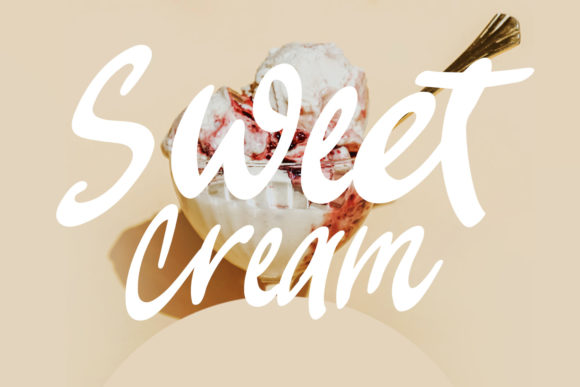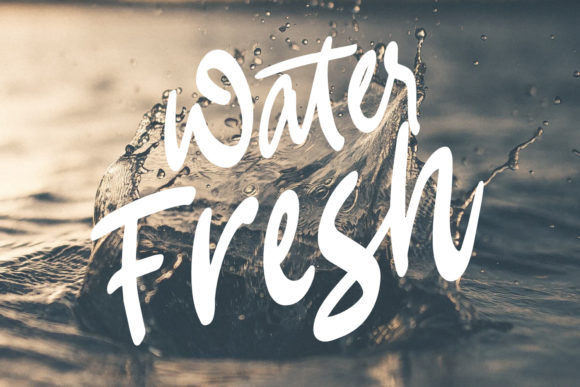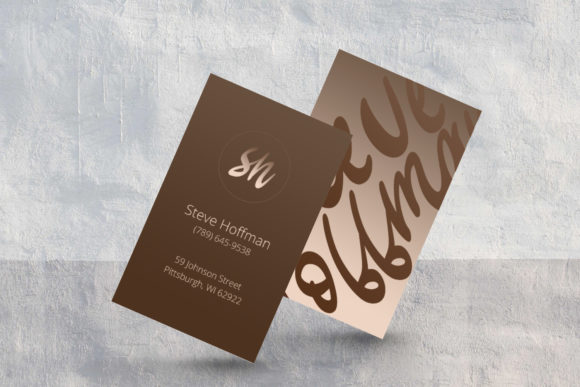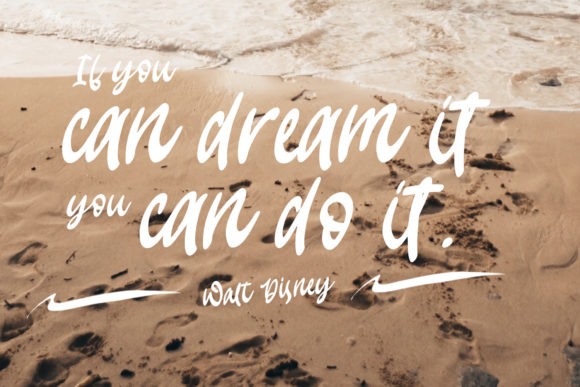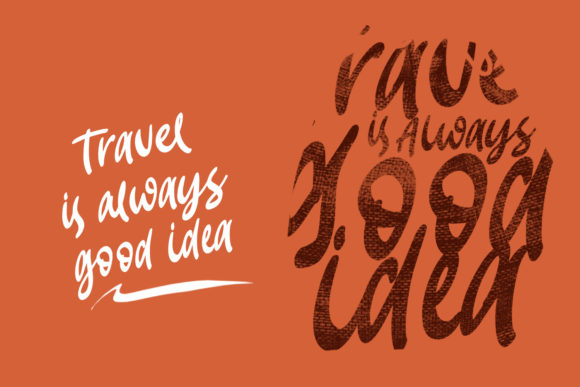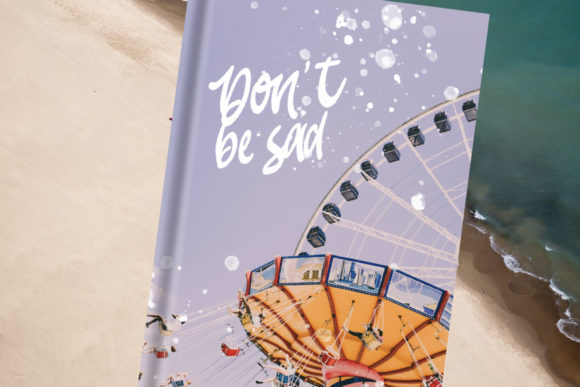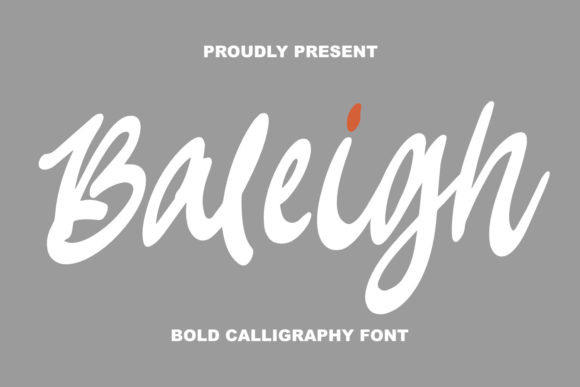
Baleigh Font: The Ultimate Casual Script Font for Designers and Crafters
In the world of typography, a good font can make all the difference in elevating your design or crafting project. If you’re looking for a relaxed, casual, and chunky lettered script font that can add a touch of personality to your creations, look no further than Baleigh Font. In this article, we’ll dive into the features and benefits of Baleigh Font, and explore how it can become an incredibly valuable asset to your font library.
What is Baleigh Font?
Baleigh Font is a modern script font that exudes a sense of casual elegance. Its relaxed and chunky lettering style makes it perfect for a wide range of design and crafting projects, from social media graphics and blog posts to invitations, packaging, and more. Whether you’re a designer, crafter, or DIY enthusiast, Baleigh Font is sure to become a go-to choice for adding a personal touch to your creations.
Key Features of Baleigh Font
- Relaxed and Casual Style: Baleigh Font boasts a laid-back, informal vibe that’s perfect for designs that require a friendly and approachable tone.
- Chunky Lettering: The font’s chunky lettering style adds a touch of whimsy and playfulness to any design, making it ideal for projects that require a bit of personality.
- Highly Versatile: Baleigh Font can be used for a wide range of projects, from digital designs to print materials, and can be easily paired with other fonts to create unique and interesting combinations.
- Easily Readable: Despite its chunky style, Baleigh Font is surprisingly easy to read, making it perfect for body text and longer blocks of copy.
Benefits of Using Baleigh Font
So why should you consider adding Baleigh Font to your font library? Here are just a few benefits of using this versatile and charming font:
- Adds Personality to Your Designs: Baleigh Font’s unique style allows you to add a touch of personality to your designs, setting them apart from more generic and boring fonts.
- Perfect for Branding and Marketing Materials: The font’s friendly and approachable vibe makes it perfect for use in branding and marketing materials, such as social media graphics, flyers, and brochures.
- Great for Crafting and DIY Projects: Baleigh Font is also ideal for crafting and DIY projects, such as handmade cards, invitations, and packaging.
- Easy to Pair with Other Fonts: The font’s versatility makes it easy to pair with other fonts to create unique and interesting combinations that add depth and visual interest to your designs.
How to Use Baleigh Font in Your Designs
- Use it as a Title Font: Baleigh Font’s chunky style makes it perfect for use as a title font, adding a touch of personality and whimsy to your designs.
- Pair it with Other Fonts: Experiment with pairing Baleigh Font with other fonts to create unique and interesting combinations that add depth and visual interest to your designs.
- Use it for Body Text: Despite its chunky style, Baleigh Font is surprisingly easy to read, making it perfect for use in body text and longer blocks of copy.
In conclusion, Baleigh Font is a relaxed, casual, and chunky lettered script font that’s sure to become an incredibly valuable asset to your font library. Its versatility, readability, and charming style make it perfect for a wide range of design and crafting projects, from social media graphics and blog posts to invitations, packaging, and more. Whether you’re a designer, crafter, or DIY enthusiast, Baleigh Font is a must-have font that’s sure to elevate your creations and add a touch of personality to your designs.